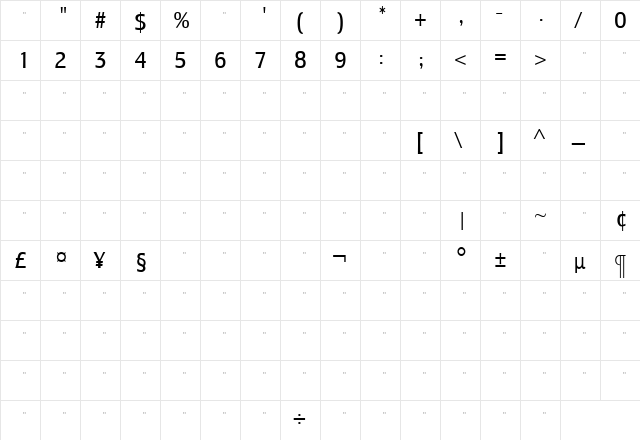
LesmoreBookCondensedTab Roman Font Preview
LesmoreBookCondensedTab Roman
Design Context for LesmoreBookCondensedTab Typeface
LesmoreBookCondensedTab is a composed and adaptable typeface that performs quietly and consistently across a wide range of design contexts. The condensed width makes it efficient for tight spaces without sacrificing legibility.